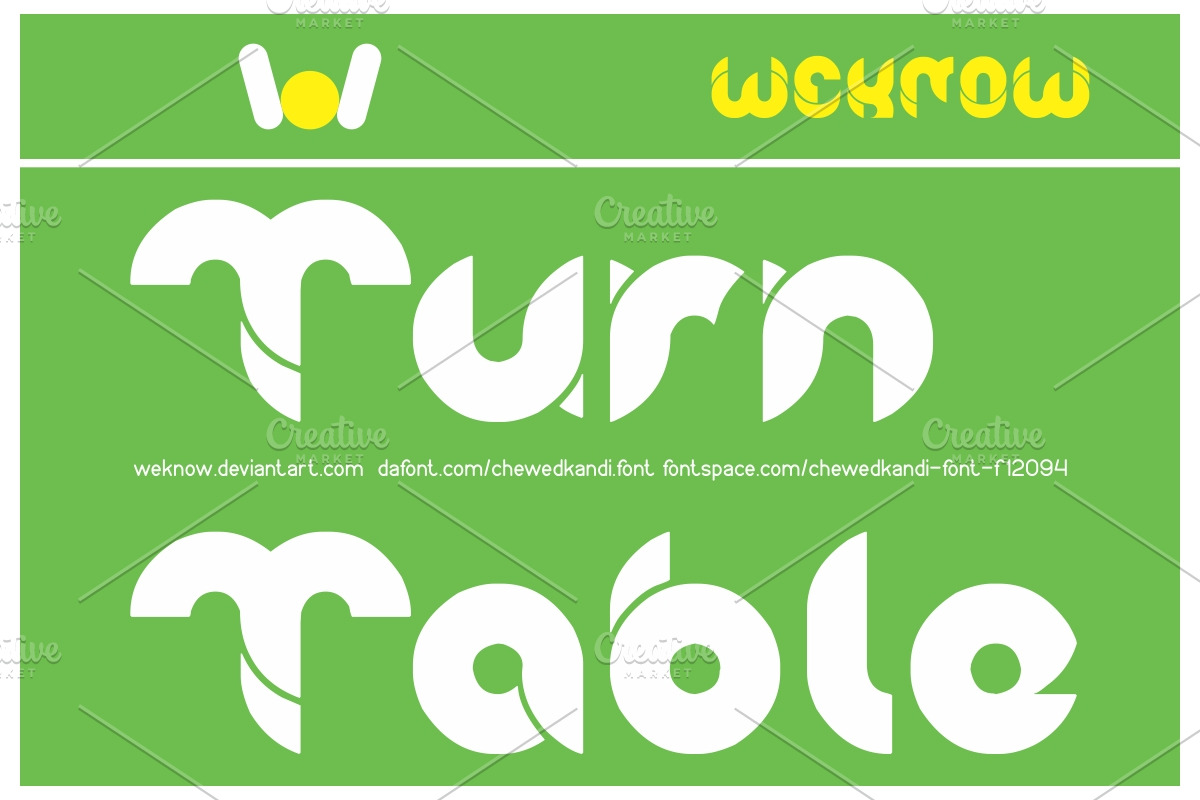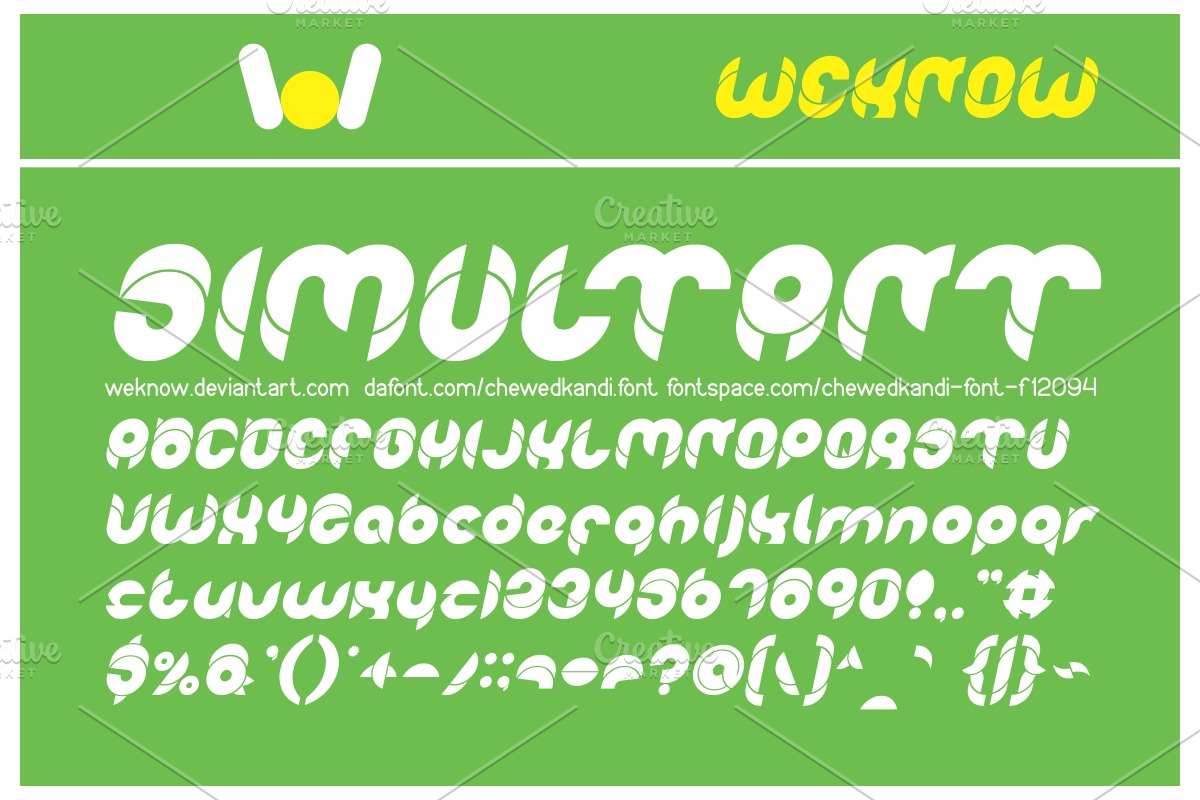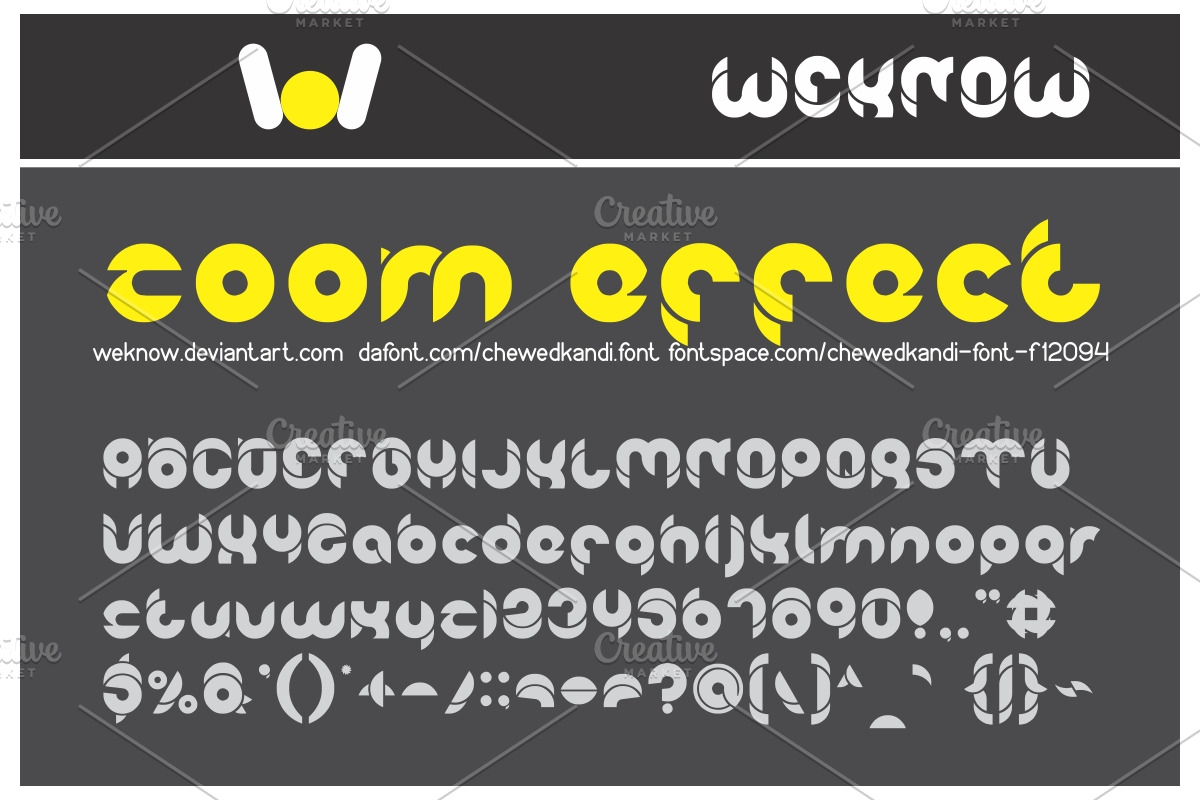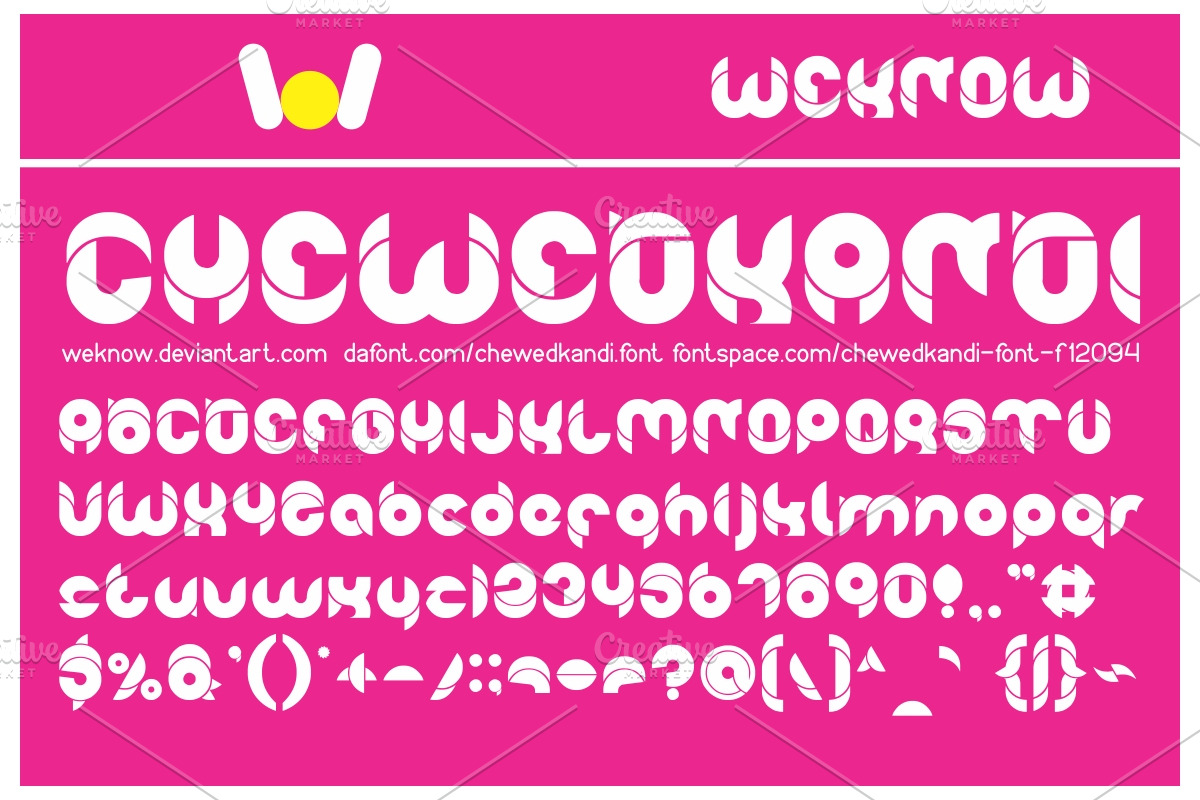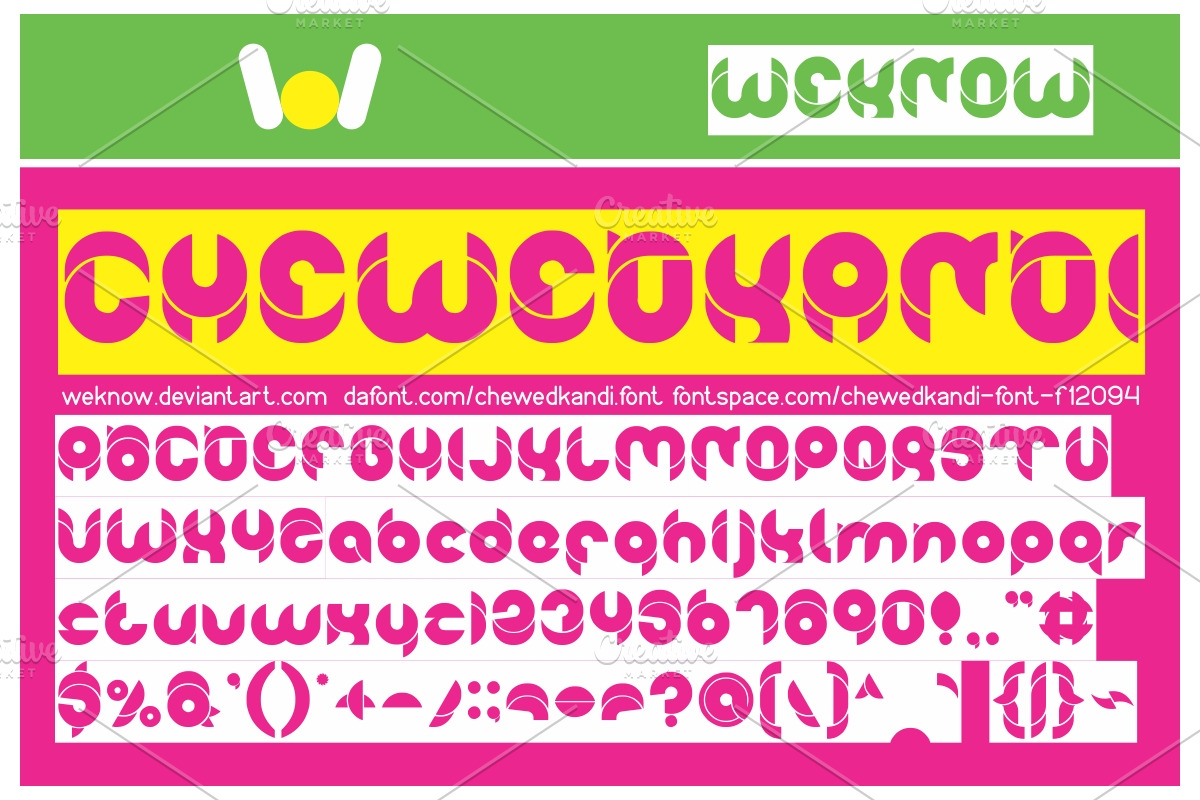
chewedkandi font
available style: chewedkandi-Inverse, chewedkandi-Italic, chewedkandi-Light
chewedkandi font by weknow fits naturally into Branding, posters, packaging, typography.